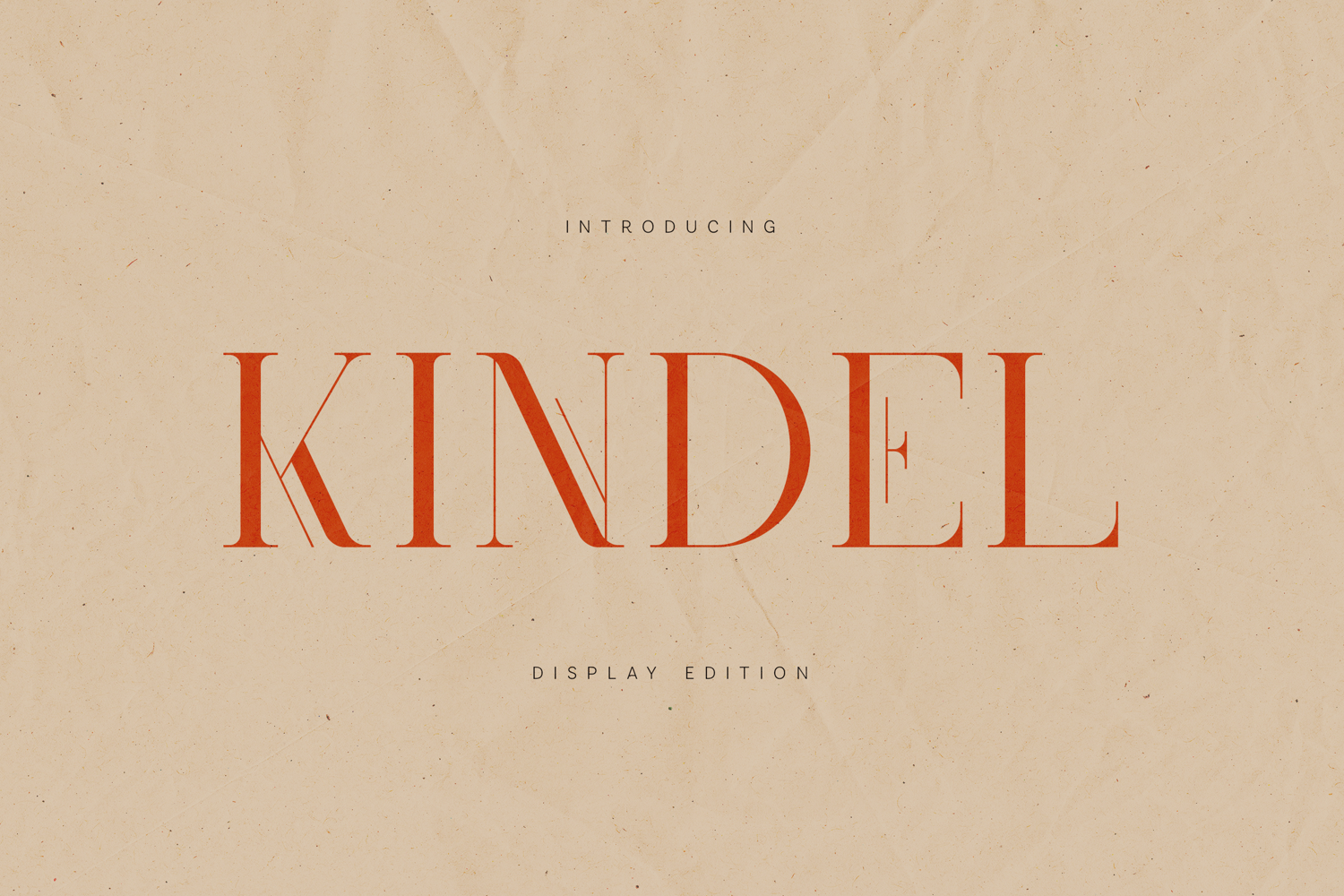
Kindel Luxury Modern Serif Font
Kindel is a refined modern serif font designed for sophisticated branding, premium editorial layouts, and luxury visual identities. Combining elegant high-contrast strokes with graceful curves and contemporary proportions, Kindel delivers a distinctive balance of timeless beauty and modern style.
Its stylish letterforms create striking headlines, memorable logos, upscale packaging, fashion campaigns, magazine designs, and premium marketing materials. Every character has been carefully crafted to provide excellent readability while maintaining a unique and luxurious personality.
Whether you're building a fashion brand, designing a boutique identity, creating wedding stationery, or crafting editorial masterpieces, Kindel brings elegance, confidence, and sophistication to every project.
- Elegant High-Contrast Serif
- Luxury Branding Style
- Perfect for Logos, Editorials, Packaging & Print Design